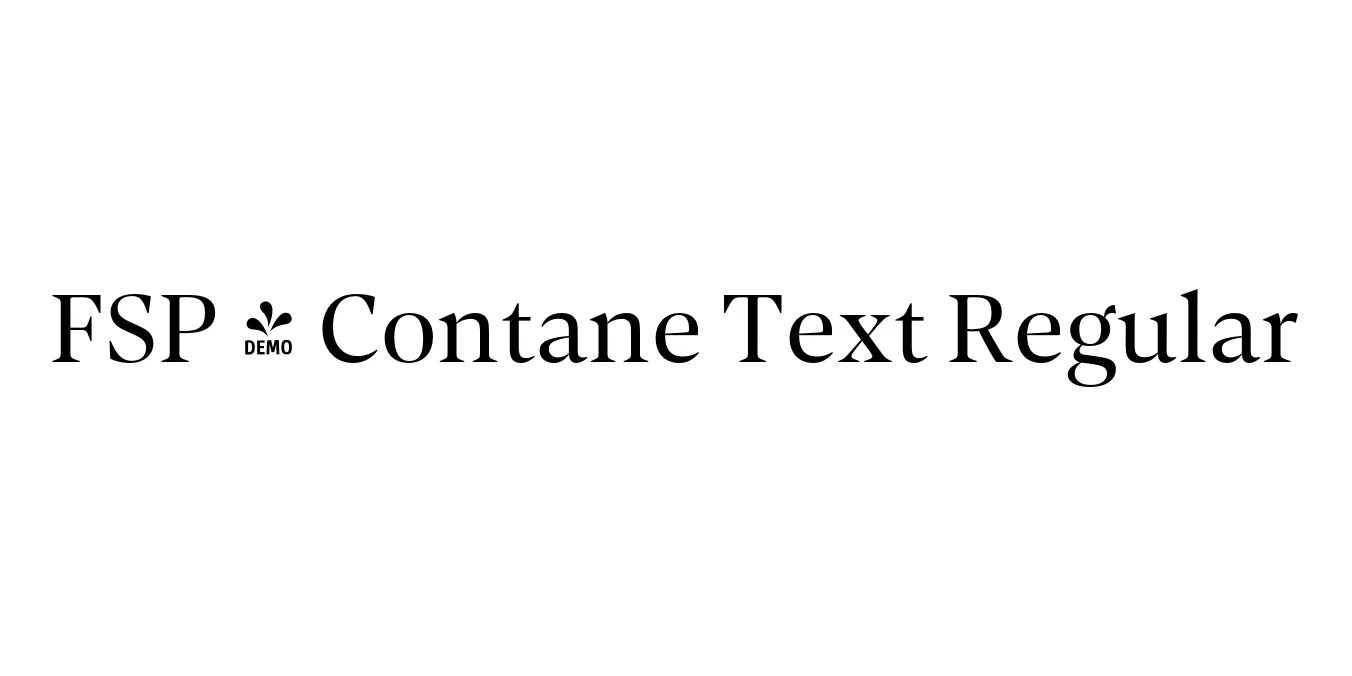
FSP - Contane Text Regular
Designed by Nils Thomsen
Contane Text Regular was meticulously crafted by Nils Thomsen and published through the TypeMates foundry. It stands as a sophisticated serif typeface specifically engineered for optimal legibility in long-form reading environments. The design philosophy behind Contane centers on balancing traditional serif elegance with modern technical requirements, resulting in a typeface that feels both timeless and highly functional for contemporary publishing.
Characterized by its robust construction and open counters, Contane Text excels in demanding editorial layouts where clarity is paramount. The Regular weight provides a balanced color on the page, avoiding the excessive thinness that can cause eye strain. Whether used in high-quality print journals or high-resolution digital interfaces, this font maintains its professional integrity and aesthetic appeal across all platforms.
FSP - Contane Text Regular Best Uses
Perfect for magazines and newspapers requiring high legibility.
Ideal for novels and academic texts that need a comfortable reading experience.
Excellent for professional reports and formal business communication.
Optimized for clear rendering of body copy on digital screens.